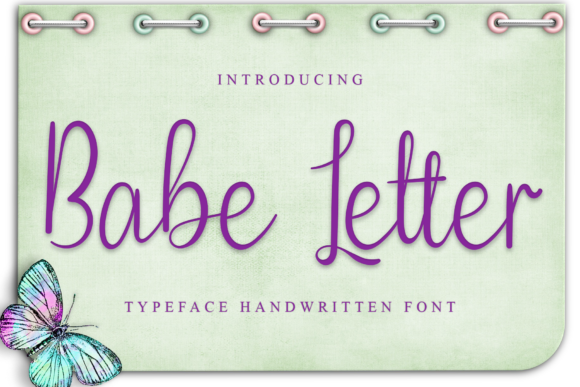
Introducing Babe Letter Font, the enchanting script that will ignite your creativity and leave a lasting impression on your audience. Immerse yourself in a world of elegance and charm as this font weaves its magic through your designs.
Crafted by the talented artists at dazzlinggleam, Babe Letter is a testament to the power of penmanship. Its delicate strokes and flowing curves mimic the grace of a handwritten letter, evoking a sense of intimacy and authenticity. With each word you create, you'll feel the love and care that went into crafting this exquisite font.
Whether you're designing invitations for your dream wedding, creating heartfelt videos to cherish, or crafting social media posts that captivate your followers, Babe Letter is the perfect choice. Its versatility knows no bounds, allowing you to express yourself in endless ways.
Imagine the joy on your guests' faces as they receive invitations adorned with Babe Letter's graceful script. The words "You're invited" will dance across the page, promising a celebration filled with love and laughter. Your wedding video will become a cherished keepsake, as Babe Letter's flowing strokes capture the emotions and memories of your special day.
And on social media, your posts will stand out from the crowd with Babe Letter's unique and captivating style. Your followers will be drawn to the beauty of your words, eager to engage with your content.